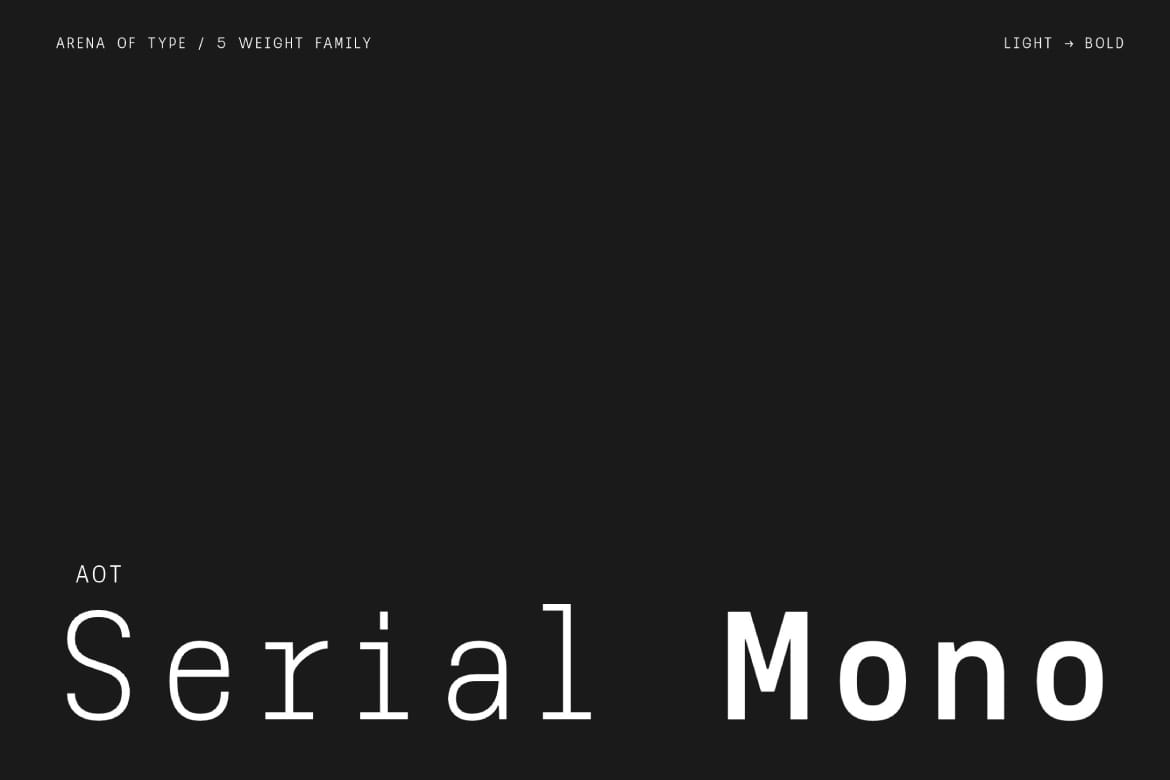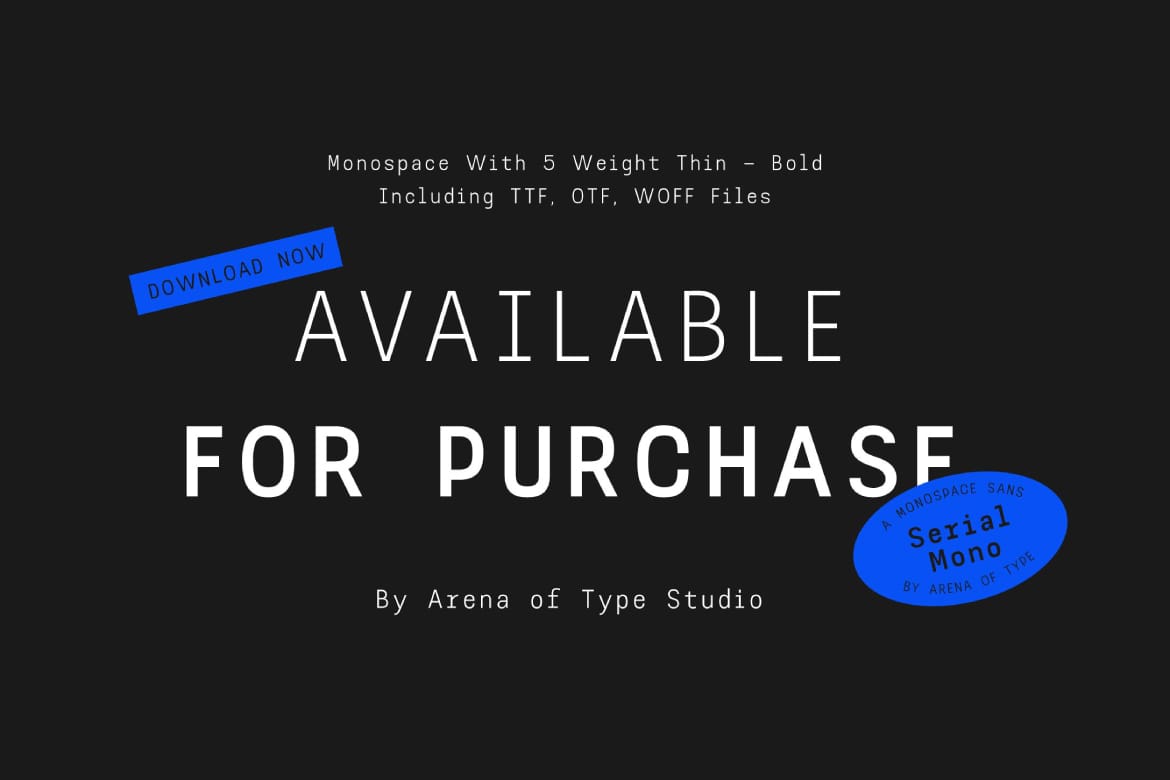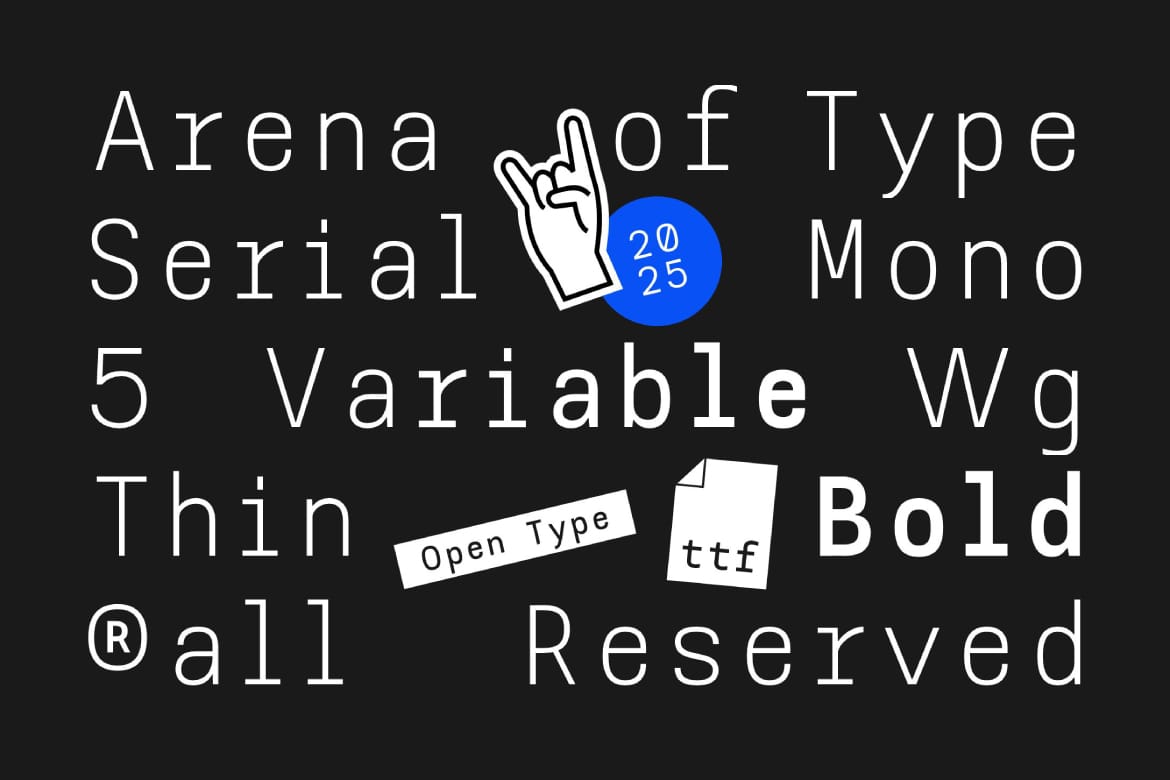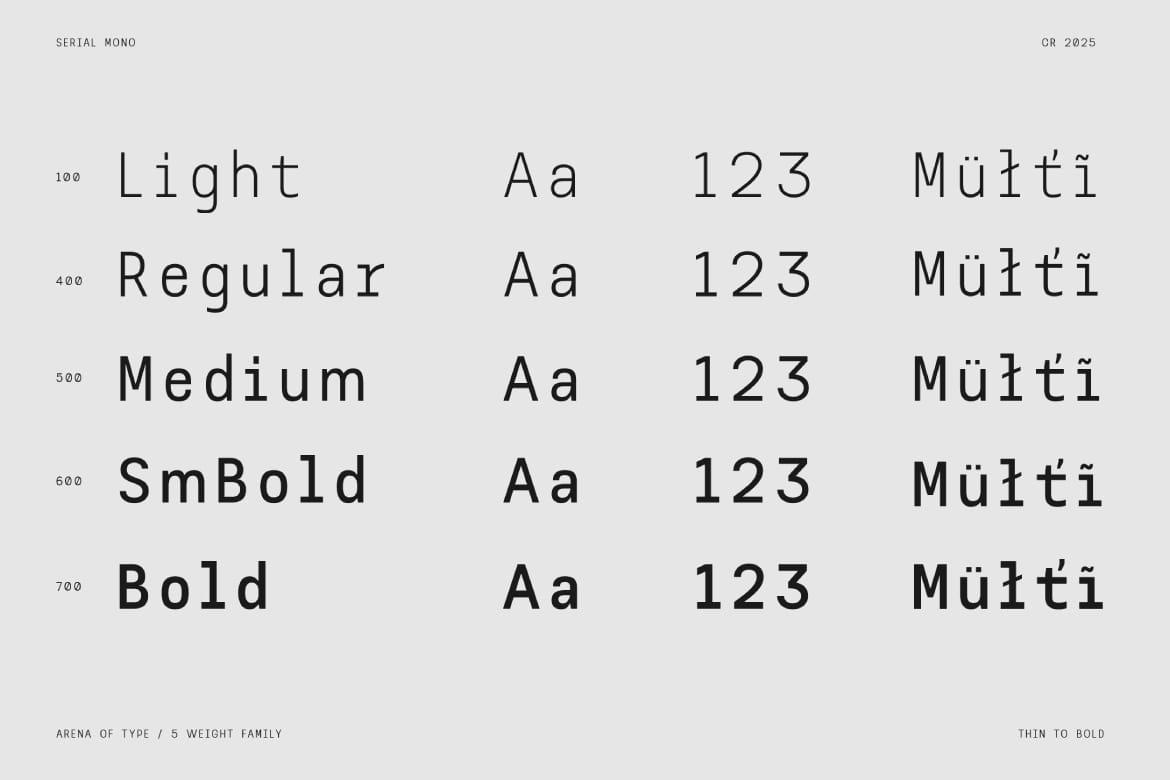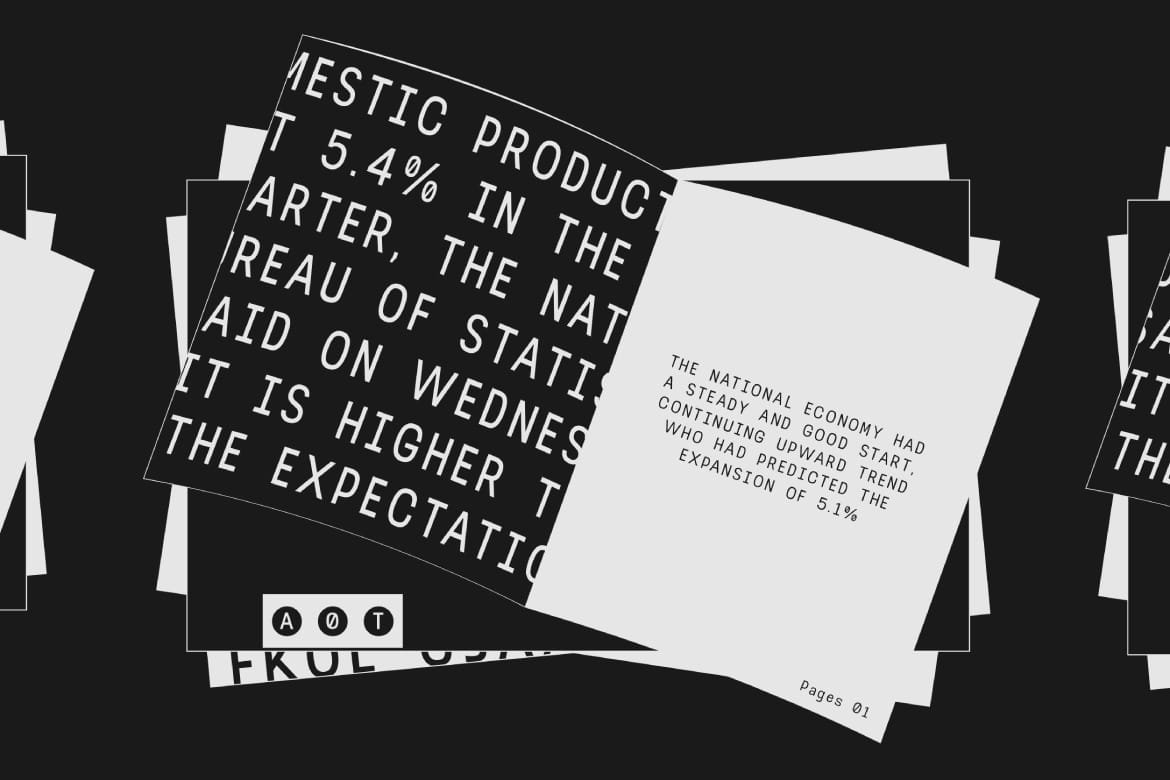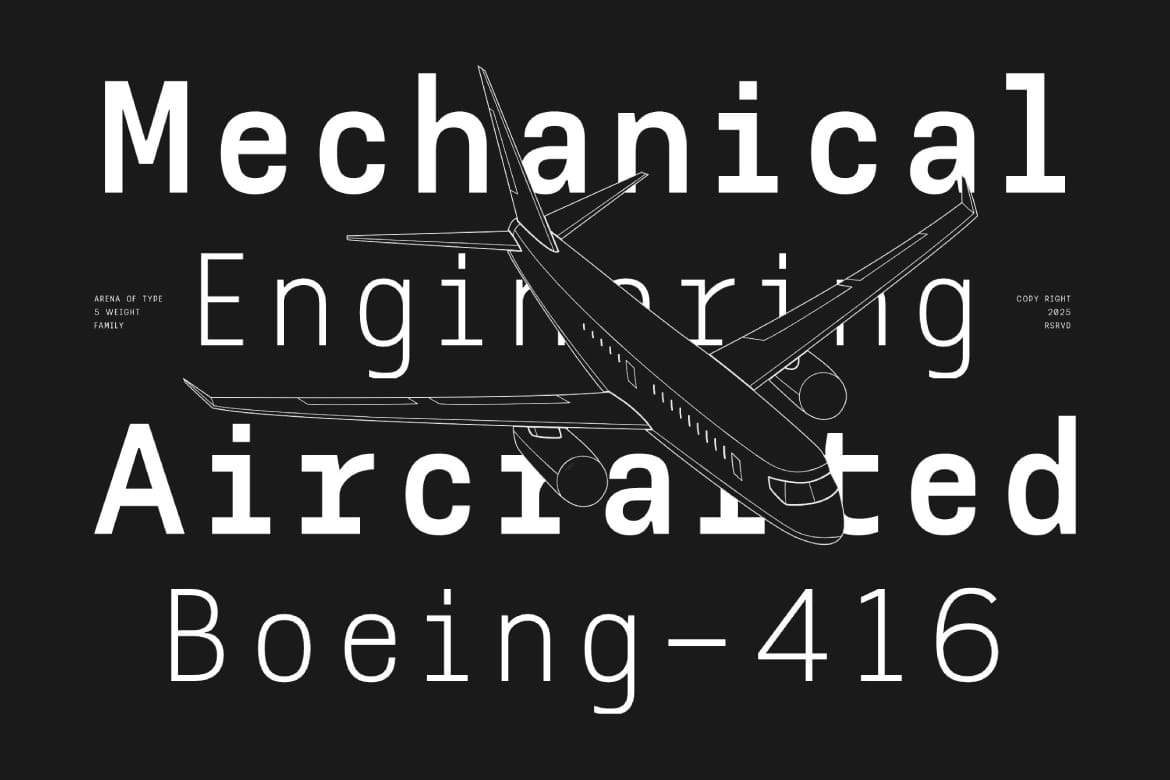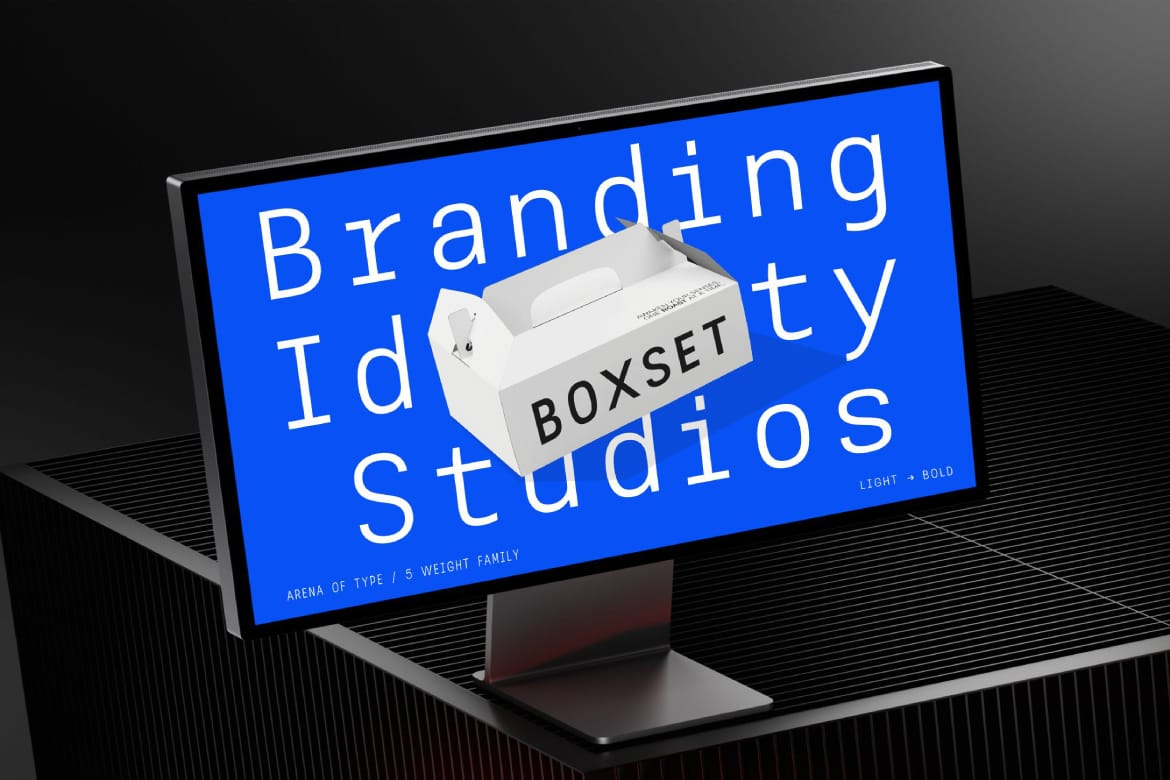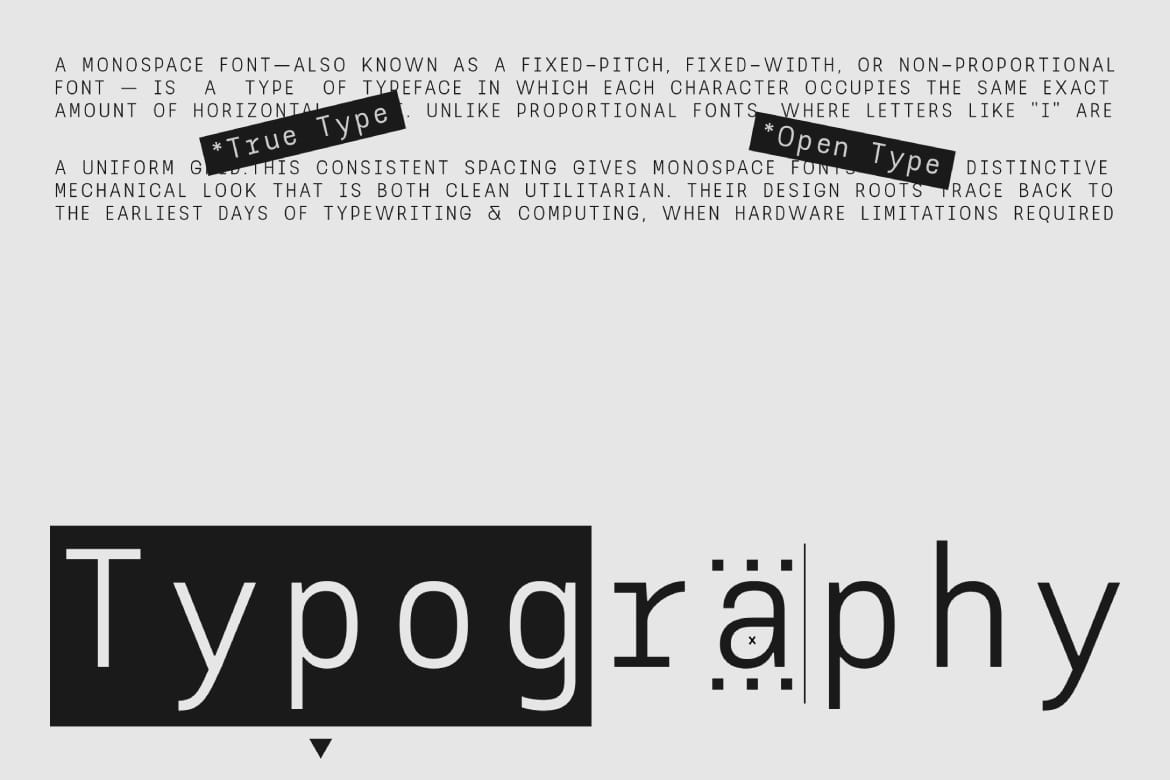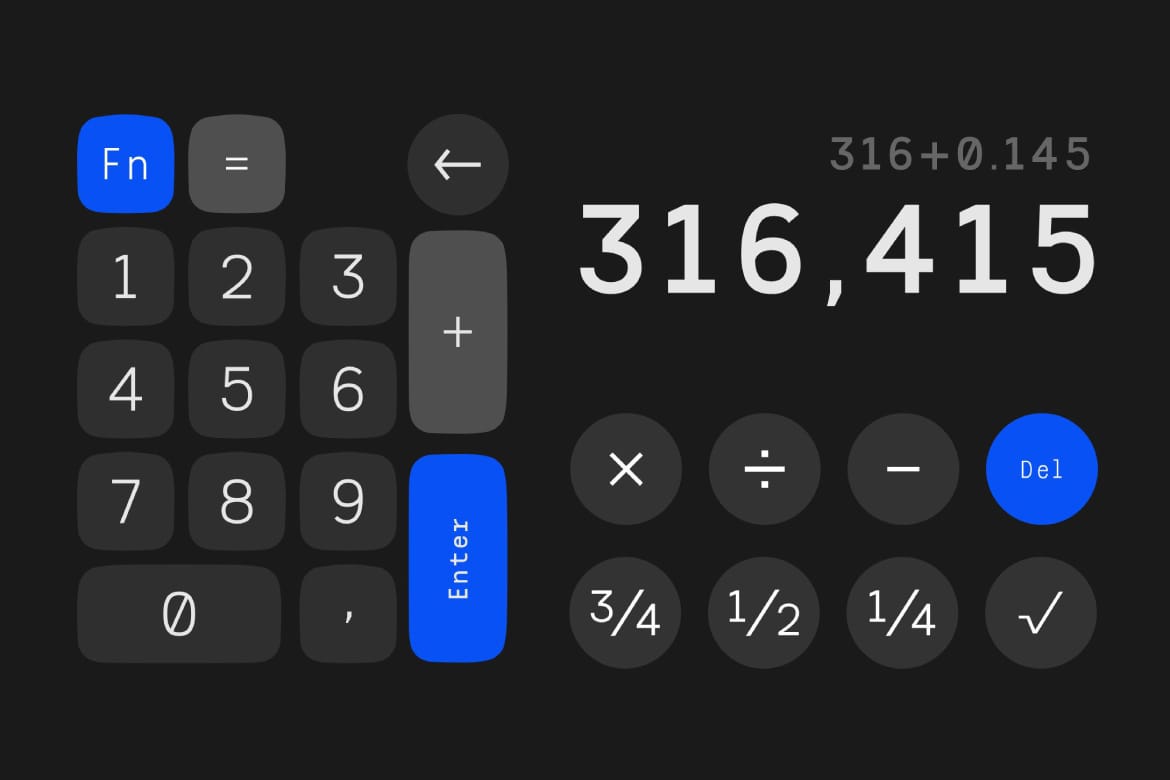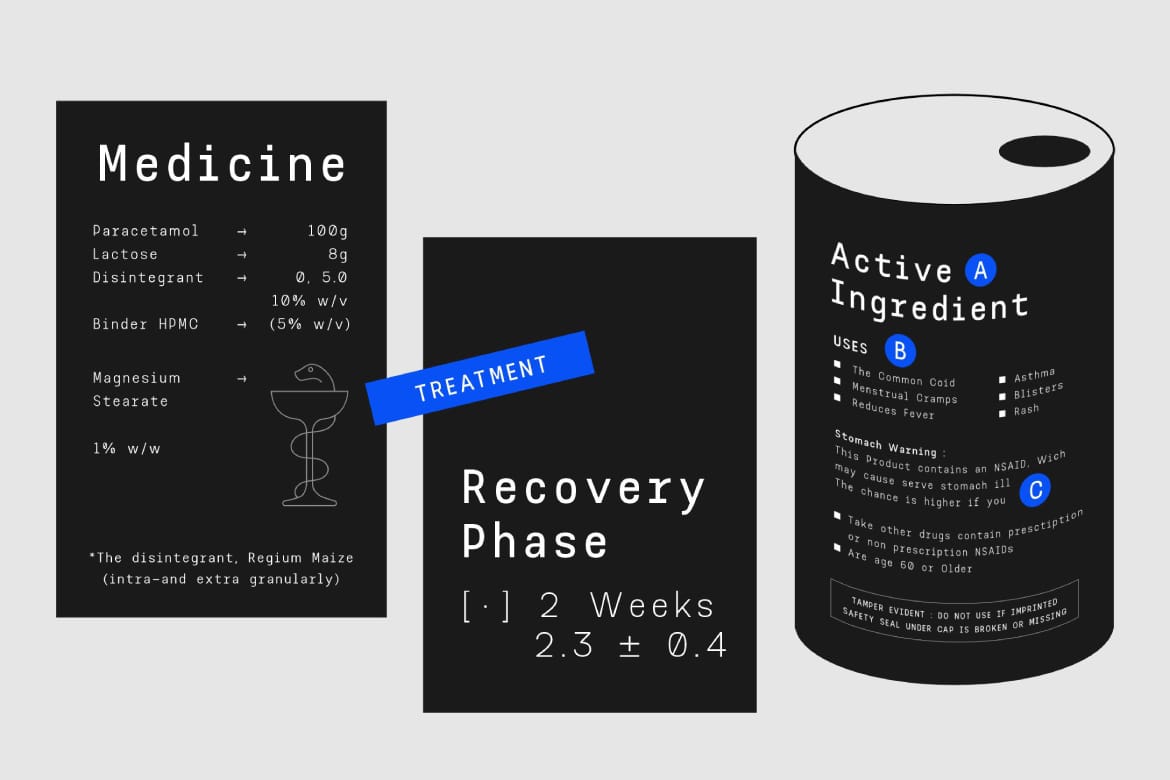
AOT Serial Mono is a modern monospaced typeface with a stylish and contemporary edge. Designed for precision and personality, this font blends clean structure with subtle character, making it perfect for code, branding, editorial layouts, and digital interfaces.
It comes in 5 weights. From Light to Bold. And includes a variable font file for maximum flexibility in your design workflow. Whether you’re building a futuristic UI or designing a minimal poster, AOT Serial Mono delivers clarity with attitude.